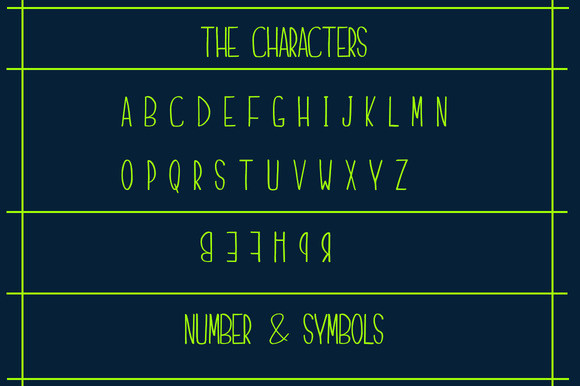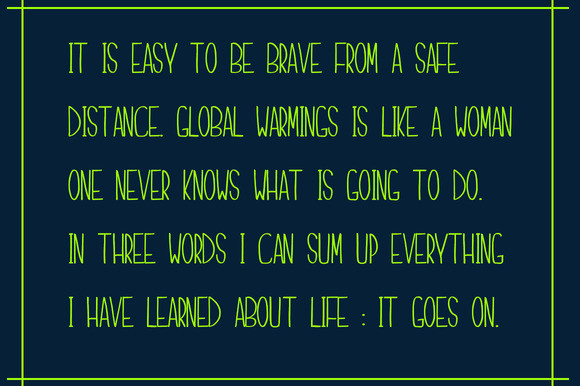
April Font
April is a beautiful handmade sweet marker font. Can be used for various purposes such as headings, signatures, logos, t-shirts, letterheads, signage’s, posters, badges, and anything else you can imagine this typeface with.